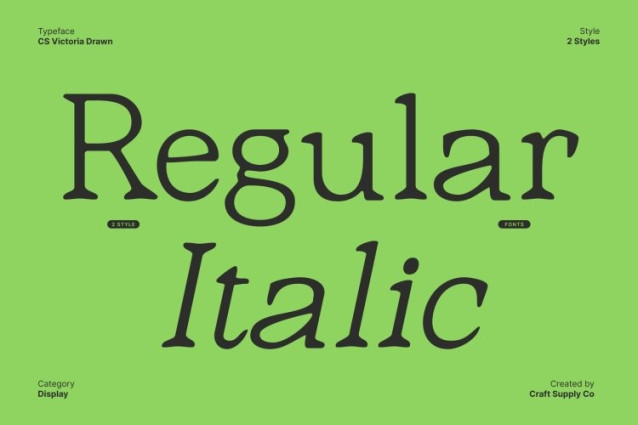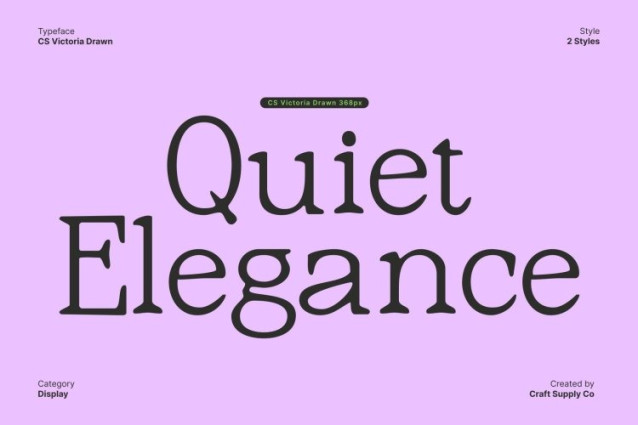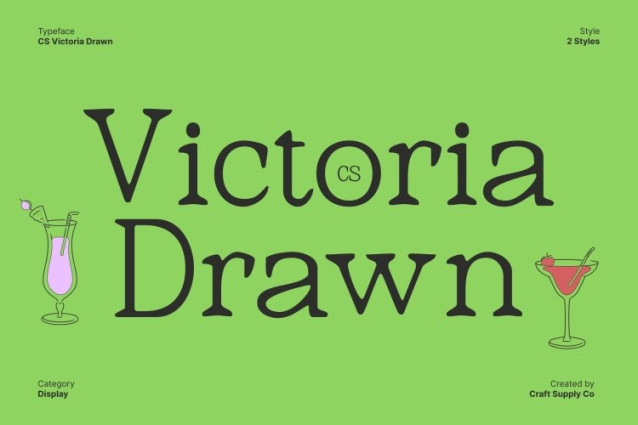
CS Victoria Drawn Font This is a modern serif font that embodies a refined sense of style and sophistication. Its clean lines and balanced proportions give it a professional and authoritative presence, making it ideal for logos, titles, headlines, and other high-impact design applications. The font’s modern structure combines elegance with clarity, ensuring every design communicates confidence and style.
Hand-Drawn Effect for Unique Character
The drawn effect adds an artistic, handcrafted quality to this font, giving each character a unique personality. Subtle textures and organic details bring warmth and originality to the font, transforming a sleek modern serif into a visually engaging, expressive typeface. This combination of modern precision and hand-drawn artistry creates designs that feel both professional and distinctive.
Elegant and Versatile Letterforms
With its graceful serifs and thoughtfully designed strokes, balances readability with stylistic flair. The font works beautifully for editorial layouts, branding, packaging, and display projects, providing a versatile tool for designers seeking a refined yet expressive typographic voice.
Creative and Impactful Design
This font adapts seamlessly across both print and digital media, offering designers the ability to create projects that stand out with elegance and artistic charm. Its blend of modern serif sophistication and hand-drawn texture ensures every design is unique, engaging, and visually memorable.